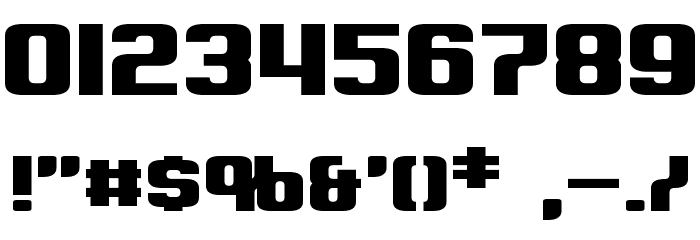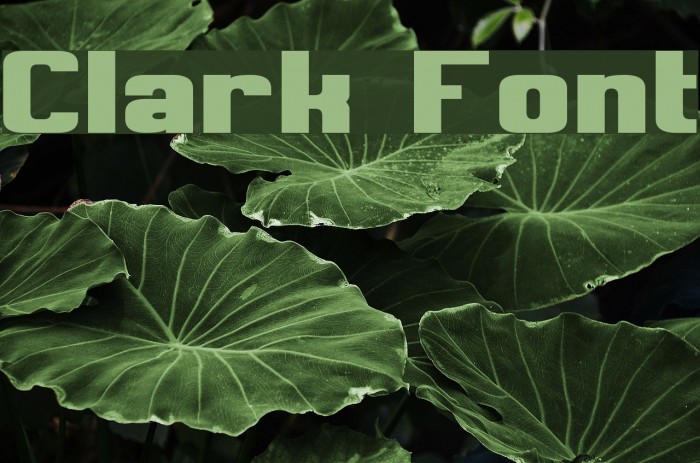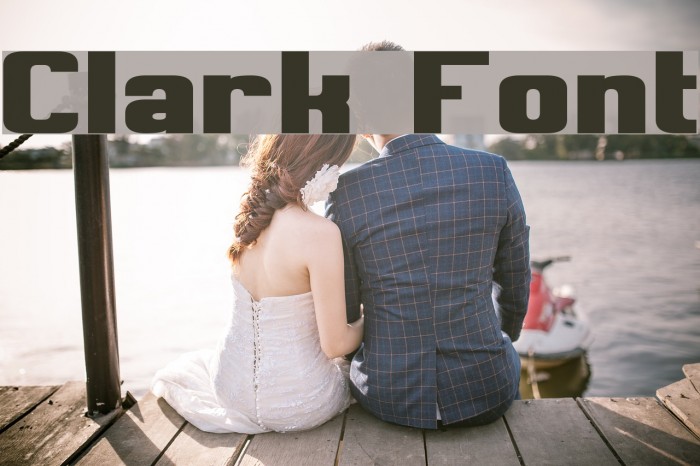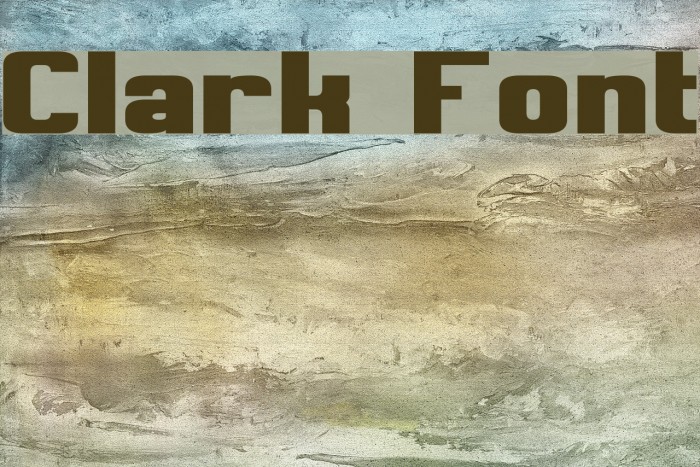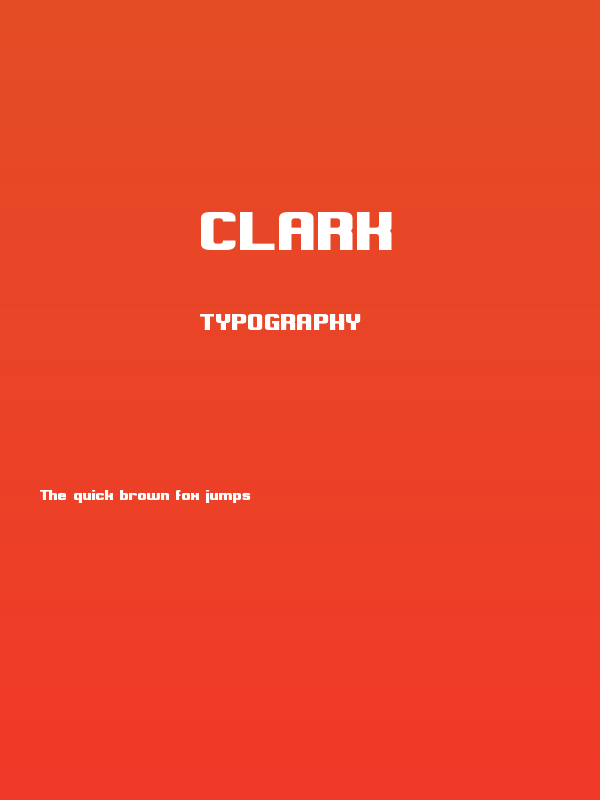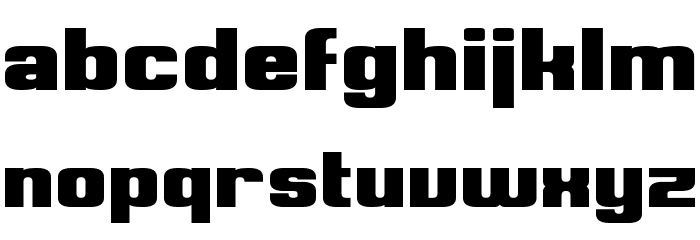
Clark Font
Clark Description
This font features a bold and robust design, characterized by thick, uniform strokes and a strong geometric structure. The uppercase letters are particularly striking, with a block-like appearance that conveys a sense of stability and strength. The lowercase letters maintain this boldness while offering a slightly softer edge, making them versatile for various design needs. The numerals are equally bold, ensuring they stand out in any context. Special characters are designed with the same attention to detail, ensuring consistency across all glyphs. This font's overall appearance is modern and impactful, making it suitable for attention-grabbing headlines and logos.